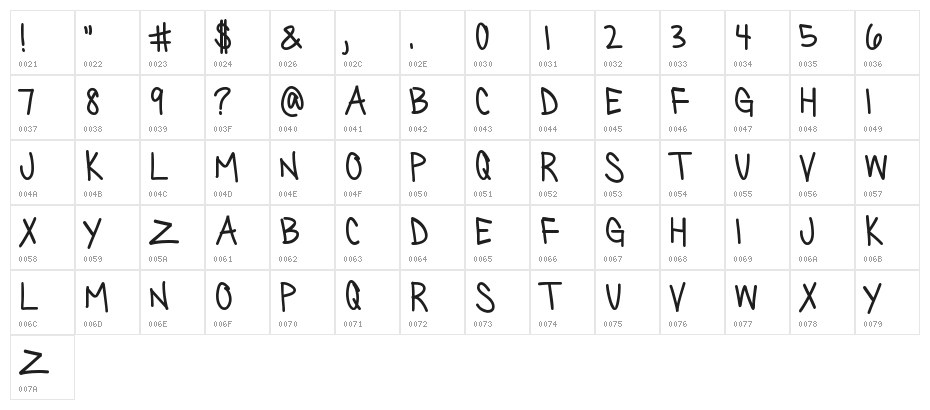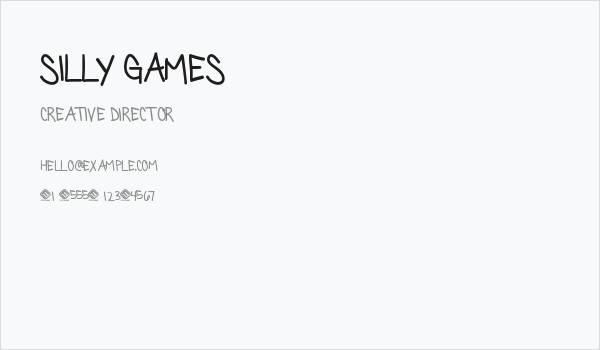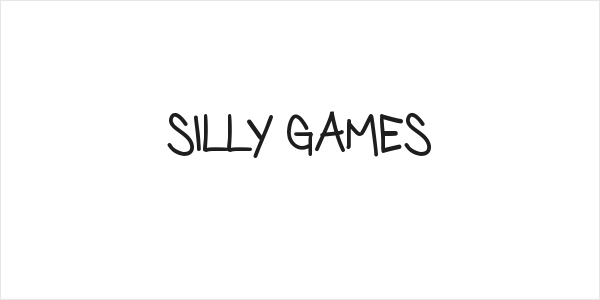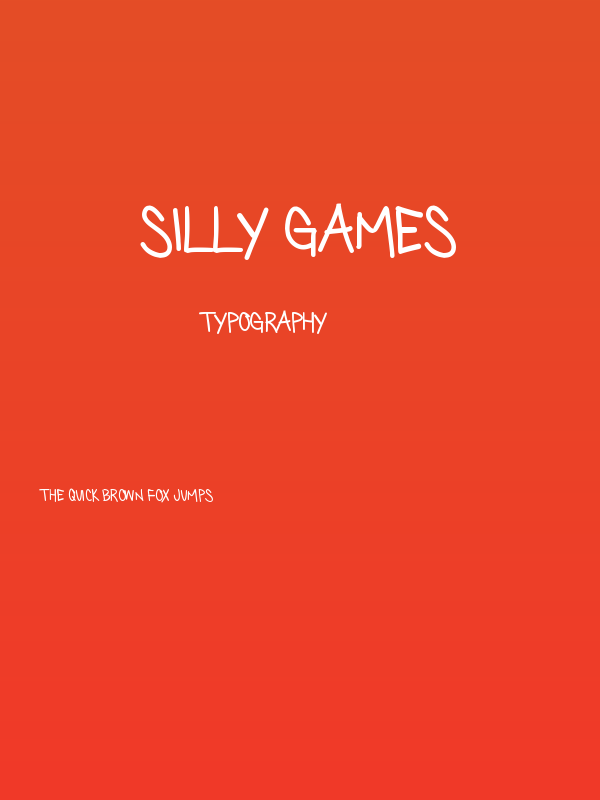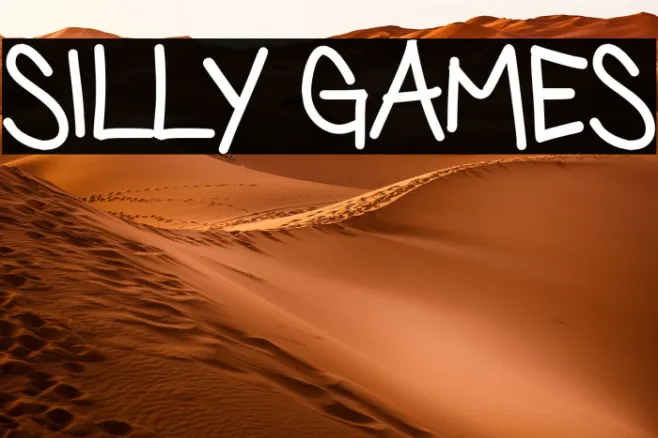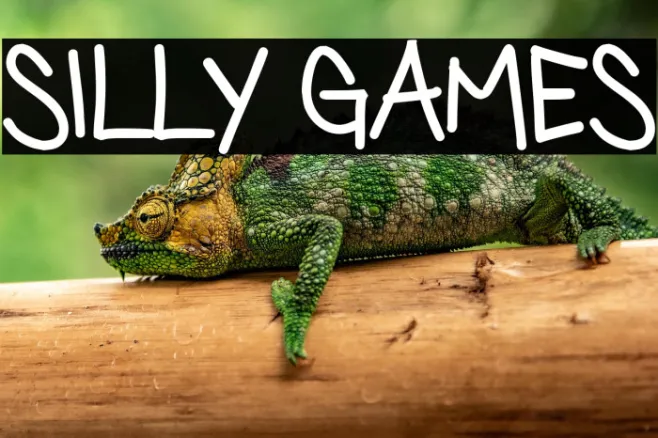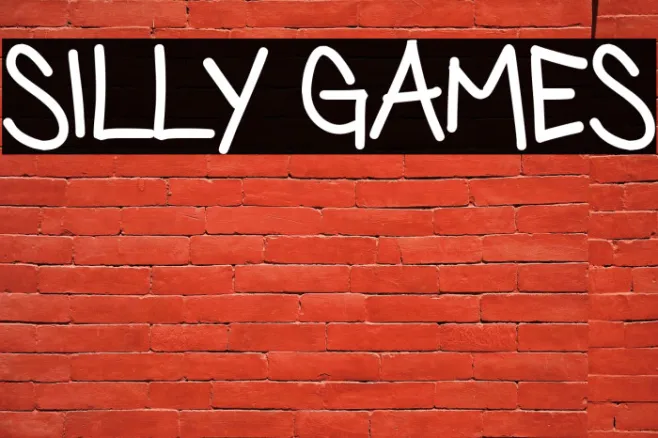
Silly Games Font
Silly Games Description
This playful and energetic font features a handwritten style with bold, rounded strokes that convey a sense of fun and informality. The characters are slightly irregular, adding to the casual and approachable feel. The uppercase and lowercase letters maintain a consistent style, with a slight slant that enhances the dynamic appearance. Numbers and special characters are equally expressive, making this font versatile for various creative projects. Its boldness ensures readability while maintaining a whimsical charm.
| Proposed Projects | Ideal for children's books, playful branding, greeting cards, and casual social media graphics. |